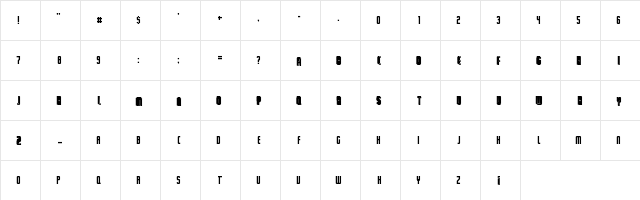
Letra Libre Regular
| Designer | Nate Cox |
Design Context for Letra Libre Typeface
Letra Libre is a composed and adaptable typeface that performs quietly and consistently across a wide range of design contexts.